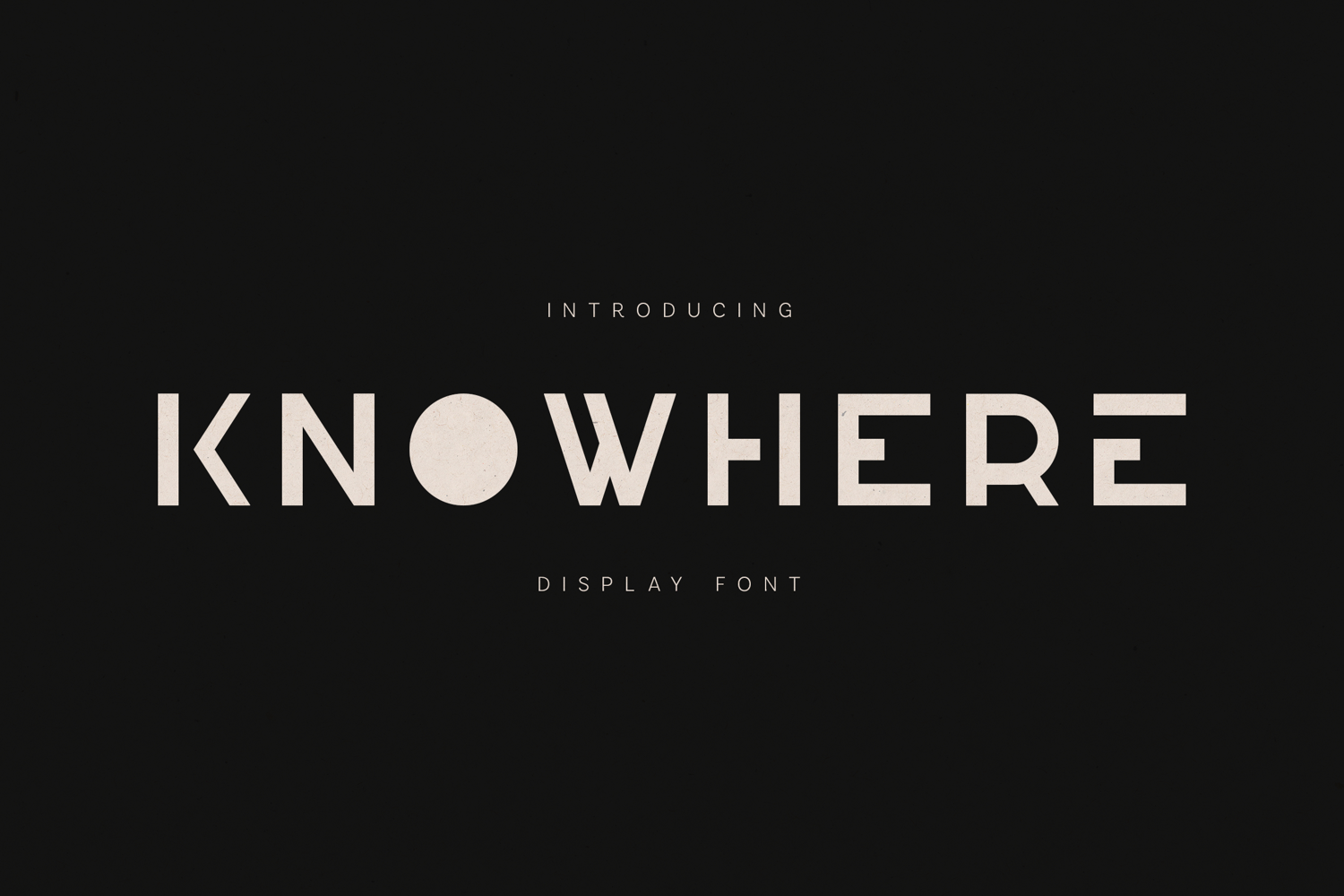
Knowhere Modern Geometric Display Font
Knowhere is a modern geometric display typeface built around bold shapes, balanced proportions, and distinctive circular forms that create a strong visual identity. The design blends minimalism with experimental geometry, giving the typeface a futuristic and contemporary character that stands out in large titles and modern visual compositions.
The letterforms are constructed with clean vertical and horizontal structures combined with unique geometric elements such as solid circles and sharp triangular forms. These distinctive shapes create a memorable typographic rhythm that makes headlines and branding instantly recognizable. The bold and confident construction of the characters allows the font to maintain excellent readability while still feeling modern and experimental.
Knowhere is designed primarily for display use, where typography becomes the main visual element. Its striking geometry works beautifully in posters, editorial layouts, branding identities, album covers, technology branding, modern packaging, advertising campaigns, and contemporary design systems. The strong shapes and wide proportions give text a powerful presence that attracts attention while maintaining a clean, structured look.
The typeface includes uppercase and lowercase characters, numerals, punctuation, and extended multilingual characters, allowing designers to create modern typography across many languages. The extended character set supports a wide range of European languages, making the font suitable for international projects and global branding work.
With its bold geometric structure and modern design language, Knowhere is a powerful display font for designers looking to create strong headlines, futuristic branding, modern posters, and visually striking typography.